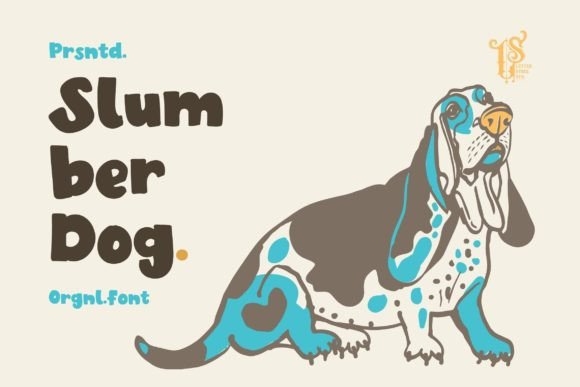
Slumber Dog Font: Elevate Your Designs with Playful Elegance
In the world of typography, fonts play a crucial role in conveying the tone and personality of a brand or design. With the vast array of fonts available, it can be challenging to find one that stands out from the rest. However, if you’re looking for a font that exudes playful elegance, look no further than Slumber Dog. This beautifully crafted font is designed to add a touch of sophistication to your designs, making it perfect for posters, headlines, and branding materials.
Original Hand-Drawn Artistry
What sets Slumber Dog apart from other fonts is its original hand-drawn artistry. Each character is meticulously crafted with precision and attention to detail, ensuring a unique and authentic appearance. The font’s creator has poured their heart and soul into designing every letter and symbol, resulting in a truly one-of-a-kind typographic experience.
The hand-drawn nature of Slumber Dog gives it a personal touch that is hard to find in digital fonts. The subtle imperfections and quirks that come with hand-drawn art make the font feel more approachable and relatable. Whether you’re designing a poster, logo, or social media graphic, Slumber Dog’s hand-drawn charm is sure to captivate your audience.
Bold Decorative Style
Slumber Dog’s bold decorative style is one of its most striking features. The font’s bold lines and ornate details make it perfect for headlines, titles, and branding materials that need to make a statement. The font’s decorative elements add a touch of sophistication and elegance, elevating your designs to the next level.
The bold style of Slumber Dog also makes it highly legible, even at larger font sizes. This is particularly useful for posters, billboards, and other large-format designs where the font needs to be easily readable from a distance. With Slumber Dog, you can create stunning designs that command attention and leave a lasting impression.
Perfect for a Variety of Design Applications
Slumber Dog’s versatility makes it suitable for a wide range of design applications. Here are some of the ways you can use this beautiful font:
- Posters and Flyers: Slumber Dog’s bold decorative style makes it perfect for creating eye-catching posters and flyers that grab attention.
- Headlines and Titles: The font’s bold lines and ornate details make it ideal for headlines and titles that need to make a statement.
- Branding Materials: Slumber Dog’s playful elegance makes it perfect for branding materials such as logos, business cards, and letterheads.
- Social Media Graphics: The font’s hand-drawn charm and bold style make it suitable for social media graphics, including Facebook posts, Instagram stories, and Twitter headers.
The Benefits of Using Slumber Dog
So why choose Slumber Dog over other fonts? Here are some of the benefits of using this beautiful font:
- Unique and Authentic: Slumber Dog’s hand-drawn artistry ensures a unique and authentic appearance that sets it apart from other fonts.
- Playful Elegance: The font’s playful elegance makes it perfect for designs that need to convey a sense of sophistication and charm.
- Highly Legible: Slumber Dog’s bold style makes it highly legible, even at larger font sizes.
- Versatile: The font’s versatility makes it suitable for a wide range of design applications.
Tips for Using Slumber Dog
Here are some tips for getting the most out of Slumber Dog:
- Use it Sparingly: Slumber Dog’s bold decorative style makes it perfect for headlines and titles. Use it sparingly to create visual interest and emphasis.
- Pair it with Other Fonts: Slumber Dog pairs well with other fonts, particularly those with a more minimalist or sans-serif style.
- Experiment with Colors: Slumber Dog looks great in a variety of colors, from bold and bright to muted and pastel.
- Pay Attention to Kerning: As with any font, pay attention to kerning to ensure that the letters and words are evenly spaced.
In conclusion, Slumber Dog is a beautiful font that offers a unique and authentic appearance, playful elegance, and high legibility. Its versatility makes it suitable for a wide range of design applications, from posters and headlines to branding materials and social media graphics. With its bold decorative style and hand-drawn charm, Slumber Dog is sure to elevate your designs and leave a lasting impression on your audience.